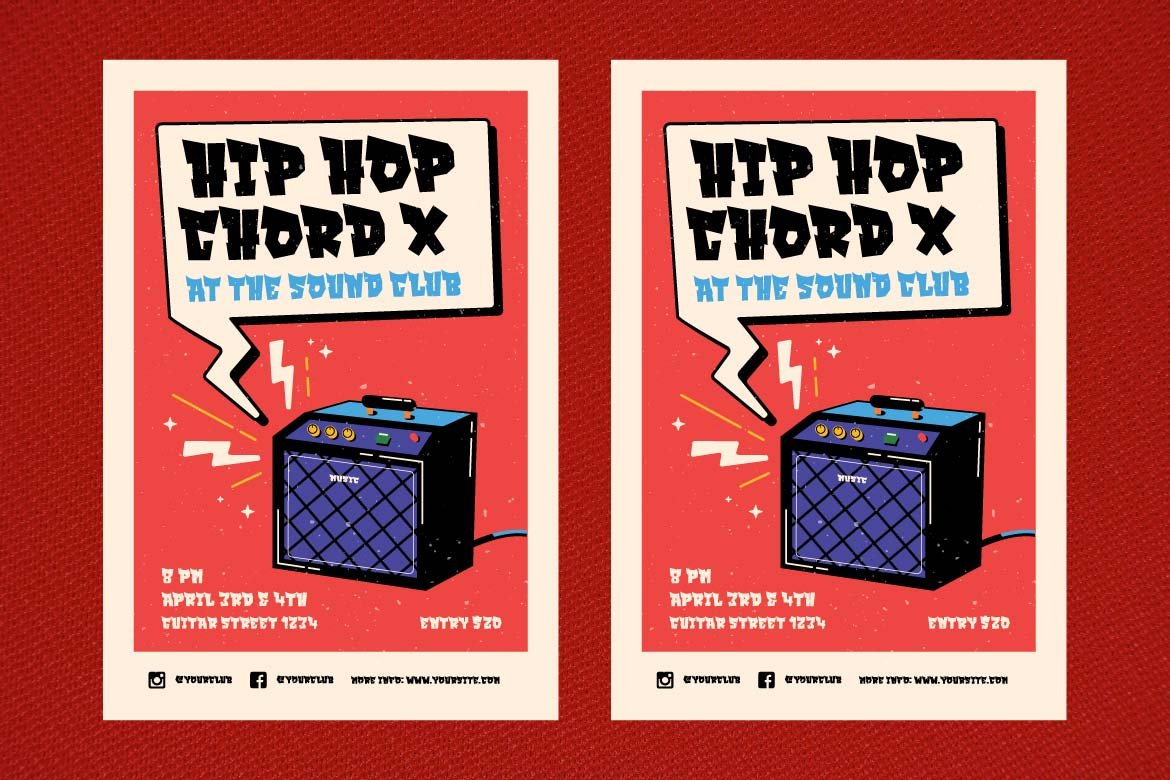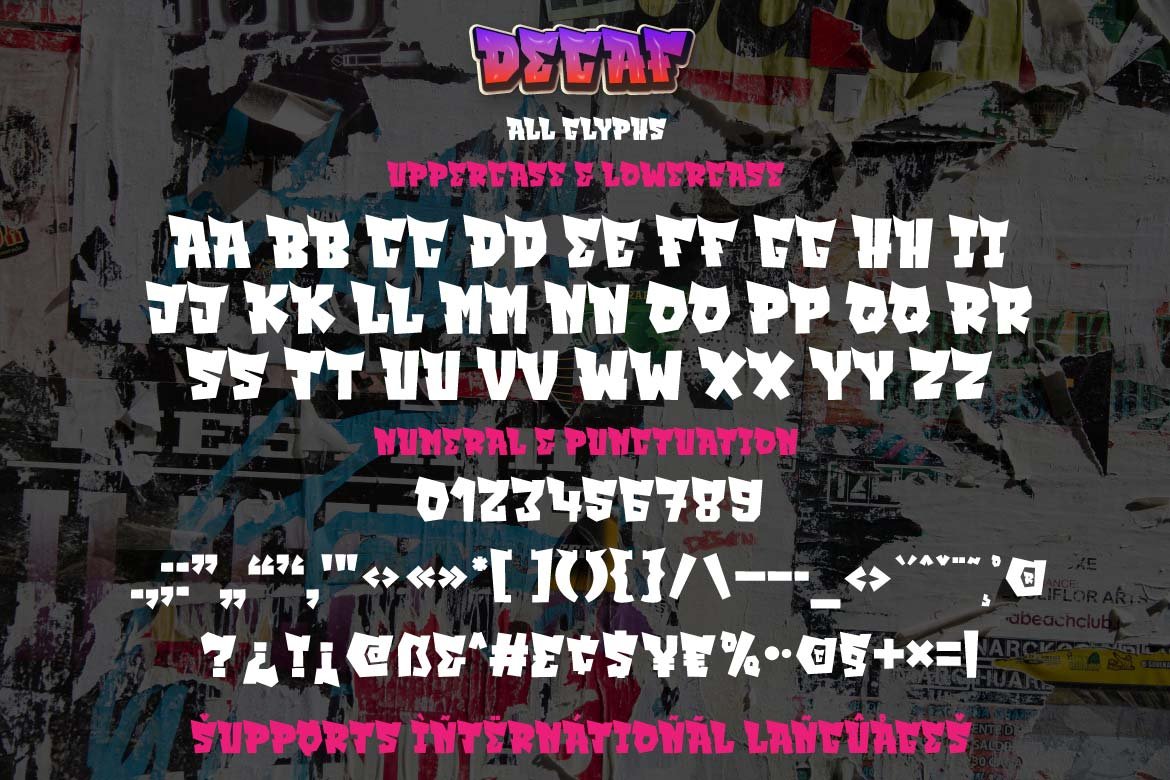
DECAF
DECAF is a display typeface with male features, as well as being robust and bold.
Don’t be afraid to use this font since it will make your project charismatic, impress all audiences, make it stand out from the crowd, and, of course, it will appear classy, sophisticated, and stunning.
This graffiti font is great for product logos, poster titles, headlines, packaging, film titles, logotypes, gorgeous writing, and trendy graffiti designs, among other things.
Of course, if you utilize this font in your numerous creative projects, they will be perfect and outstanding.
Use this typeface right away for your one-of-a-kind and remarkable projects.